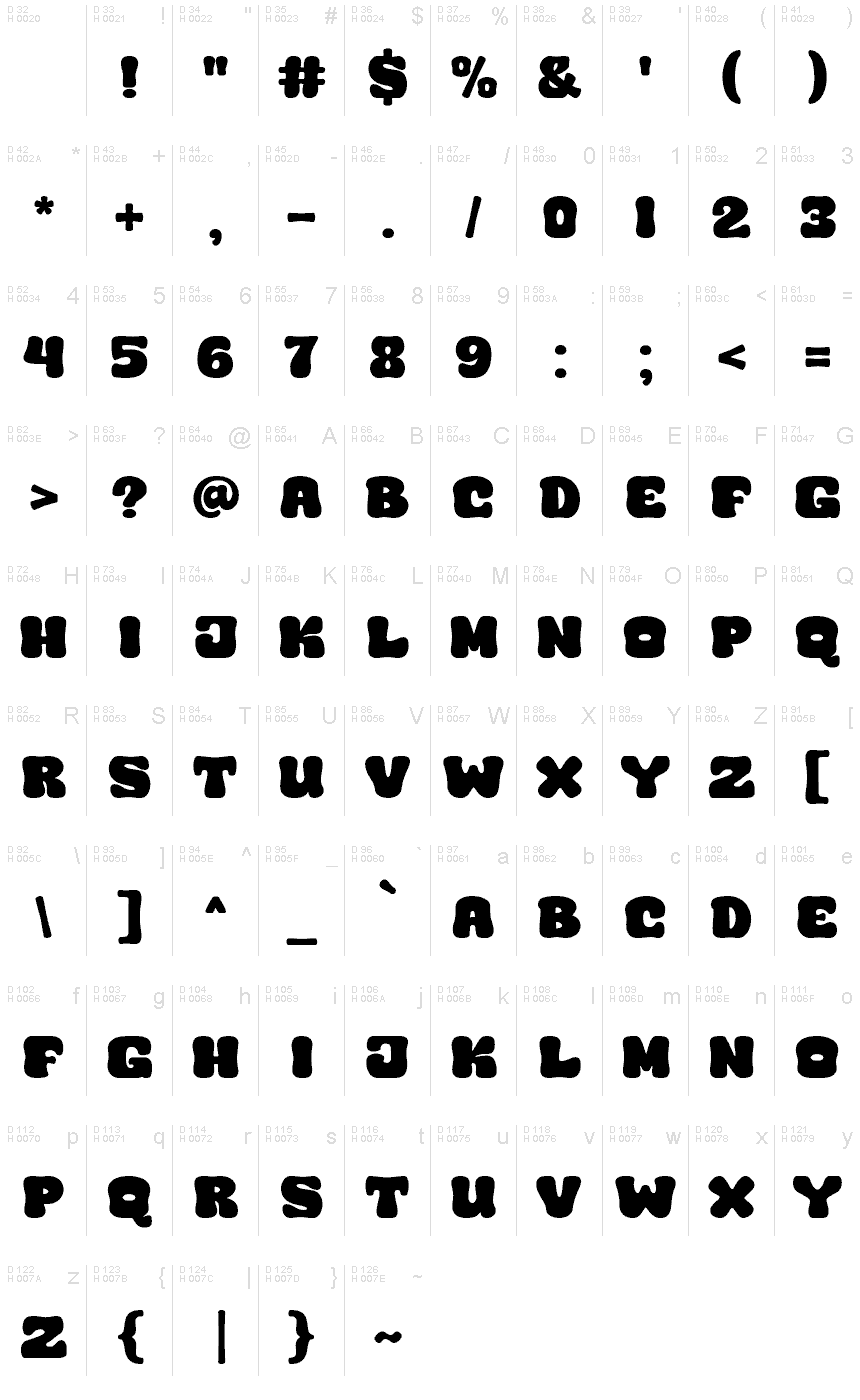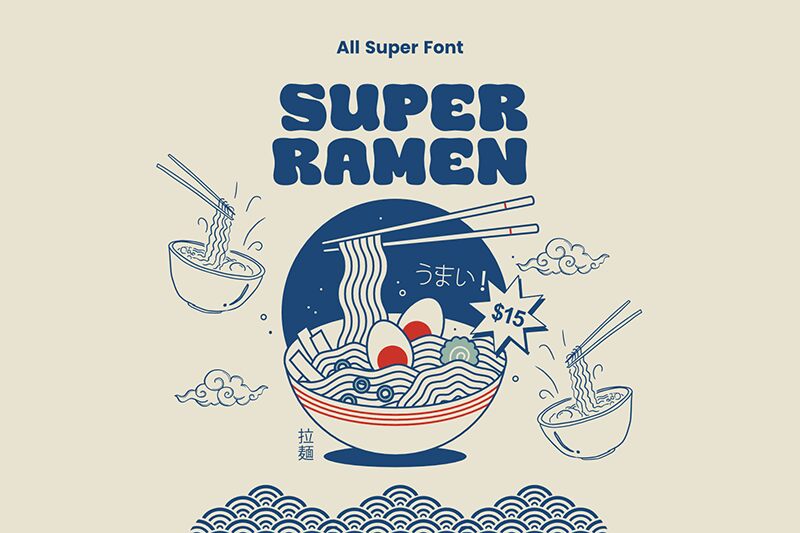
Super Ramen
Super Ramen font by fsuarez913 is a cartoon, chunky typeface made to attract with its artistic style. The display font comes with quirky rounded characters outlined with clean lines. The expanded characters present a retro style combining elegance and vintage charm ready to respond to your modern design needs.